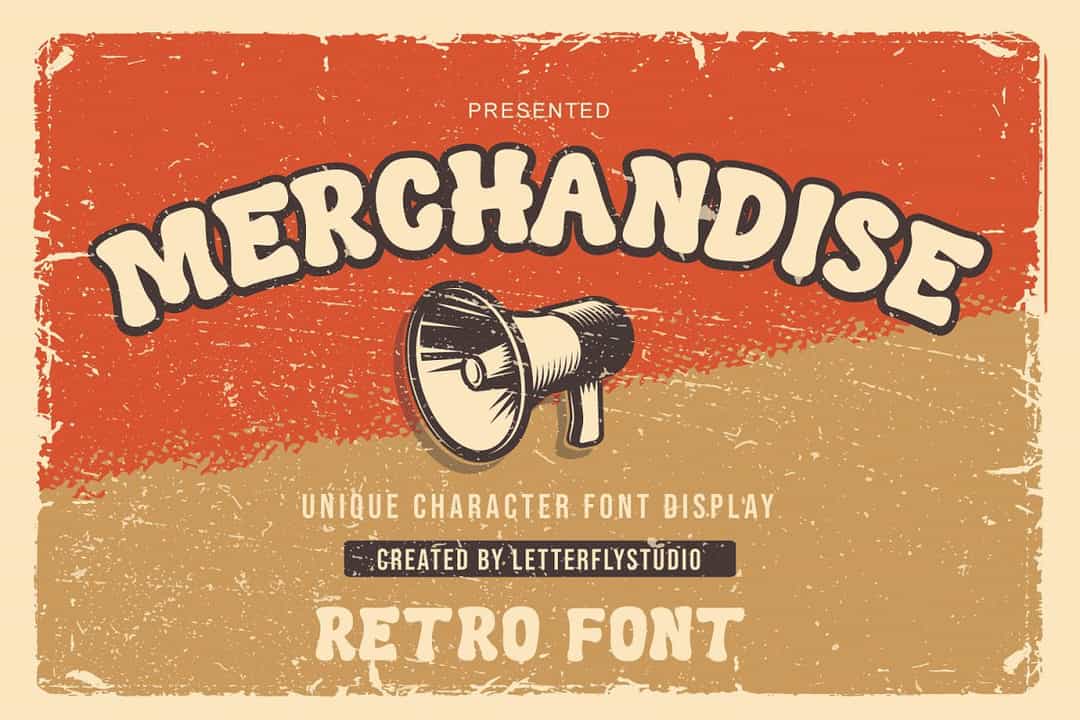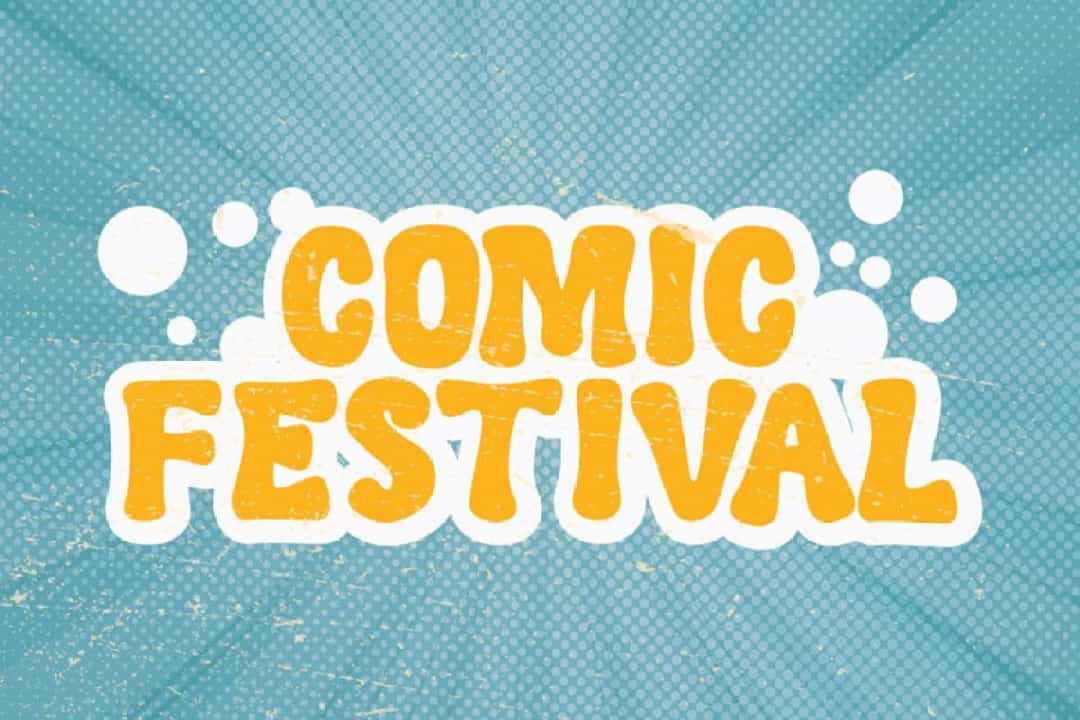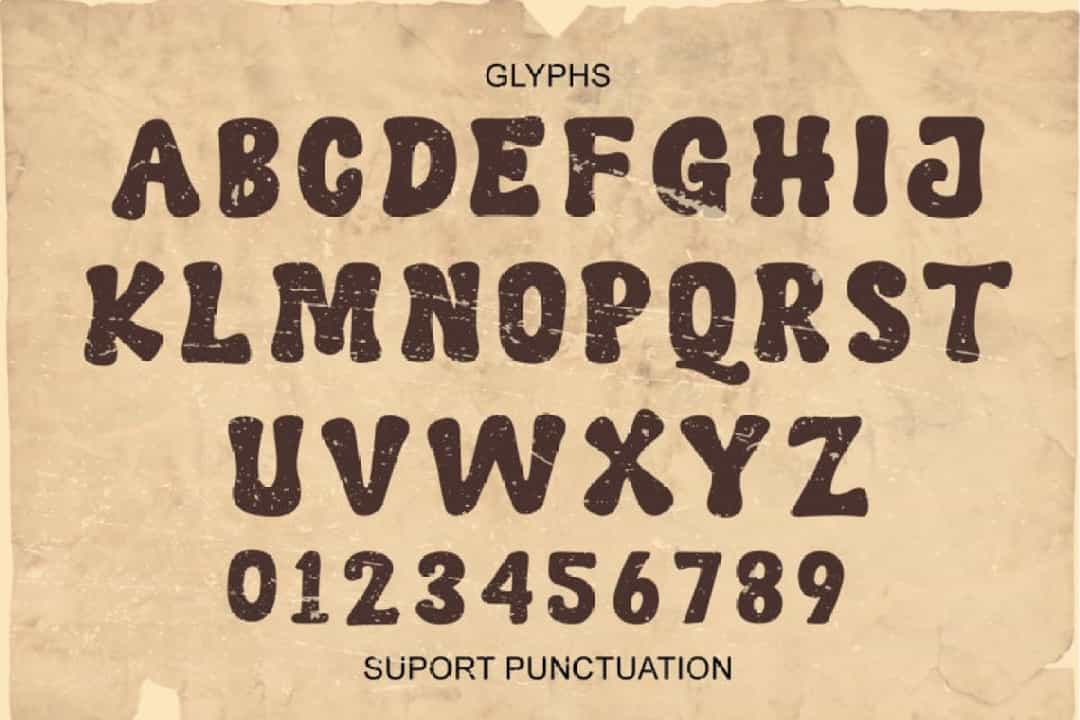
Discover Merchandise Font, part of the Display Retro Vintage collection—a versatile and unique font perfect for adding a personal touch to your projects. Download it for free and enjoy crafting designs with style, from invitations to social media posts. This font is available exclusively for personal use, giving you the freedom to create without limits. Unlock your creativity with Merchandise Font today!
Merchandise features an eye-catching Retro Pop Art Display font. No matter the subject matter of your font collection, this will make a wonderful addition! With its ability to enhance any font family it will add something special and memorable.